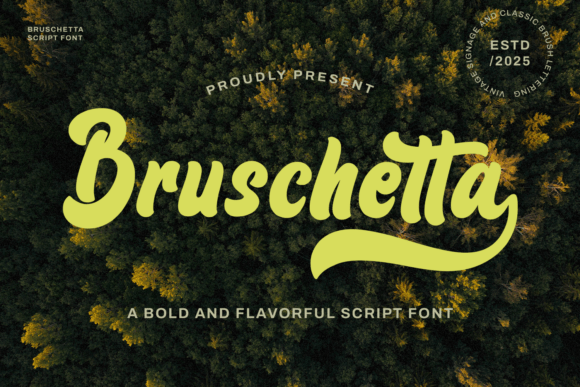
The Magic of Bruschetta Font: A Designer’s Delight
I’ll never forget the time I was working on a Christmas project for a client, and I just couldn’t find the right font to capture the festive spirit. The design was starting to feel flat, and I knew I needed something with a bit of personality. That’s when I stumbled upon Bruschetta Font, and let me tell you, it was love at first sight! 💫
This bold script handwritten display font has a way of blending vintage charm with a retro flair that’s hard to resist. Its strong strokes and fluid curves bring a sense of character and personality to any design, while maintaining a handcrafted feel that’s perfect for a wide range of creative projects.
A Closer Look: What I Love About Bruschetta Font
So, what makes Bruschetta Font so special? Here are a few things that I absolutely love:
- ✨ Perfect balance of elegance and boldness: This font is attention-grabbing without being overwhelming, making it perfect for a wide range of design projects.
- ✅ Versatility: Whether you’re working on a seasonal or festive theme, Bruschetta Font shines across Christmas, New Year, Easter, Winter, and Thanksgiving designs.
- ✅ Handcrafted feel: The font’s unique character and personality make it feel like a bespoke addition to any design.
- ✅ Endless customization possibilities: With a variety of alternate characters and stylish swashes, Bruschetta offers a range of decorative flourishes to enhance your typography.
While Bruschetta Font is an amazing addition to any design toolkit, there are a few things to keep in mind:
- 🤔 Legibility at small sizes: As with many script fonts, Bruschetta can be a bit tricky to read at very small sizes. Make sure to test it out at different sizes to ensure it works for your project.
- ⚠️ Overuse of swashes: While the swashes are a beautiful addition to the font, it’s easy to overdo it. Make sure to balance them out with some simpler text to avoid overwhelming the design.
The Story Behind Bruschetta Font
While the true story behind Bruschetta Font is unknown, it’s easy to imagine that it was created with a passion for vintage design and a love of handcrafted typography. The font’s unique character and personality make it feel like a bespoke addition to any design, and its versatility makes it perfect for a wide range of creative projects.
| Is Bruschetta Font suitable for body text? | While Bruschetta Font is a beautiful addition to any design, it’s best suited for headlines or titles rather than body text. Its unique character and personality make it perfect for grabbing attention, but it can be a bit tricky to read at small sizes. |